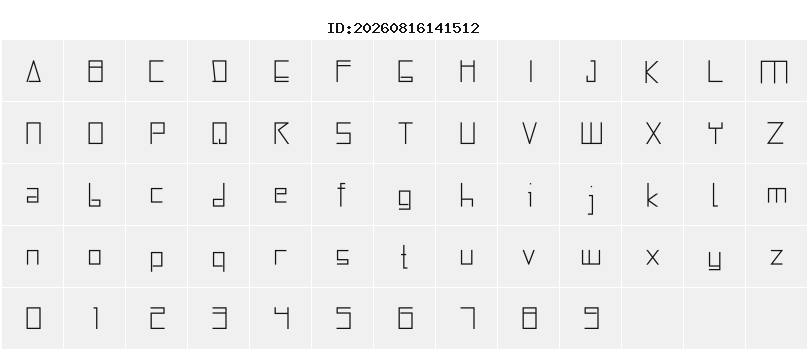
SquareBox Preview
• Font Name: SquareBox
• Font Style: normal
• Font ID: FontForge 2.0 : SquareBox : 6-2-2016
• Full Font Name: SquareBox
• Version: Version 1
• PostScript Name: SquareBox
• Character Count: 66
About SquareBox.otf
SquareBox.otf is a modern, elegant sans-serif font designed for ultimate readability and visual harmony. Perfect for branding, headlines, web design, and print materials.